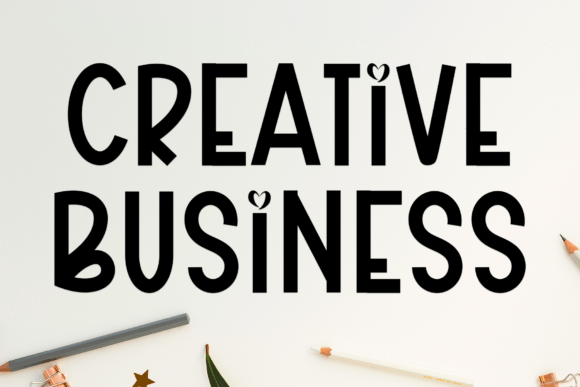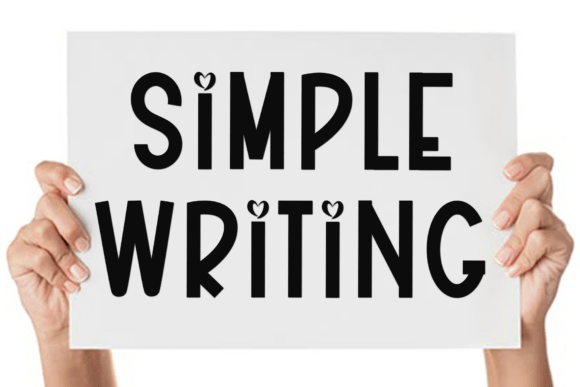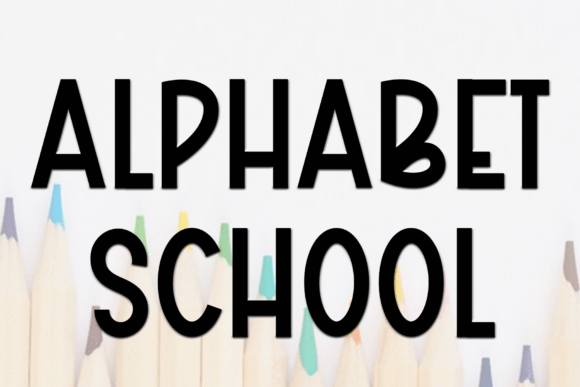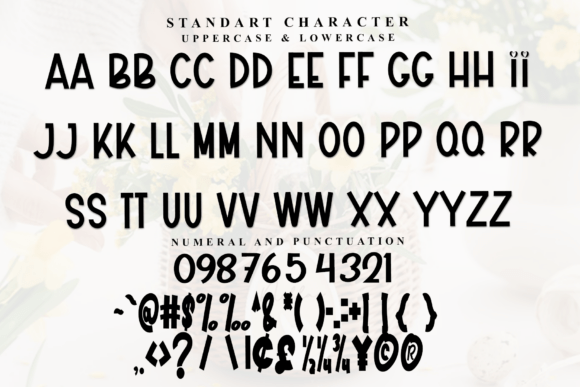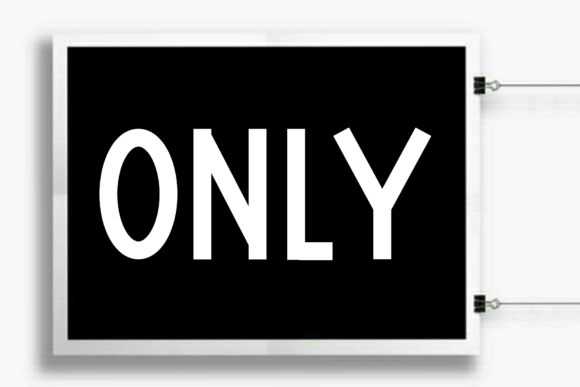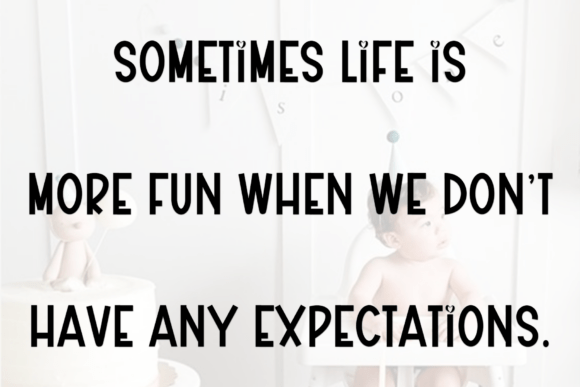
Have you ever been brainstorming ideas for a design project, and suddenly a spark of inspiration hits you? That’s exactly what happened to designers who discovered the Bubble Florida Font. Its unique, soft strokes evoke a sense of whimsy and playfulness, making it the perfect addition to any creative project.
The Bubble Florida Font is a beautifully designed font that brings a touch of personality to your work. With its distinctive character and versatility, it’s ideal for a wide range of applications, from design projects to crafts and other creative works. Whether you’re working on a Windows or open-source platform, this natural font style is compatible with various applications, making it a valuable tool for designers.
Bubble Florida Font Key Features
- Font Family: Bubble Florida is a unique, hand-drawn font designed to evoke a sense of playfulness and whimsy.
- Character Set: The font includes a comprehensive character set, including uppercase and lowercase letters, numerals, punctuation marks, and special characters.
- Unique Characteristics: The font’s distinctive bubble-like shapes and flowing lines create a visually appealing and engaging aesthetic.
Bubble Florida Font Review
I recently had the chance to work with the Bubble Florida Font, and I must say it’s a unique addition to any design project. ✨ Here are some of the things that stood out to me:
- Playful feel**: The font’s rounded edges and bubbly shape give it a playful, carefree vibe that’s perfect for projects like children’s books or party invitations.
- Easy to read**: Despite its whimsical design, the font is surprisingly easy to read, even at smaller font sizes.
- Variety of weights**: The font comes in a range of weights, from light to bold, which makes it versatile for different design applications.
- Limited legibility at extreme sizes**: While the font is easy to read at standard font sizes, it can become difficult to read at extremely large or small sizes.
- Lack of italics**: Unfortunately, the font doesn’t include italics, which can be a limitation for projects that require italic text.
Overall, I think the Bubble Florida Font is a fun and versatile addition to any design project. While it may have some limitations, its playful feel and easy readability make it a great choice for the right project. With some careful consideration of its limitations, I think this font can be a valuable asset for designers looking to add some whimsy to their work.
The Bubble Florida font is a playful and creative font that’s perfect for:
- Social media posts and graphics
- Summer-themed designs and marketing materials
For the most effective use of the Bubble Florida font, experiment with different font sizes, colors, and combinations with other fonts to create a unique and eye-catching design.